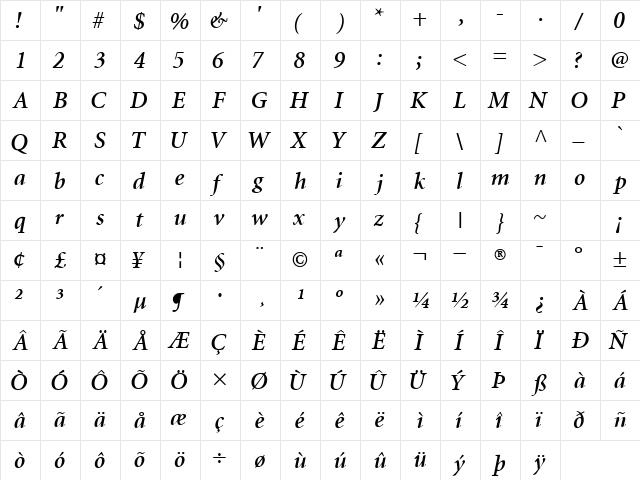
AtlantixSSK Bold Italic
Design Context for AtlantixSSK Typeface
AtlantixSSK is a composed and adaptable typeface that performs quietly and consistently across a wide range of design contexts. The dynamic lean of this cut emphasises speed and emphasis in any layout. Its bold stroke weight gives it real presence on the page.
Pro Tip: Try AtlantixSSK for annotation and caption copy alongside an upright companion — the contrast in angle creates a dynamic but ordered typographic system.